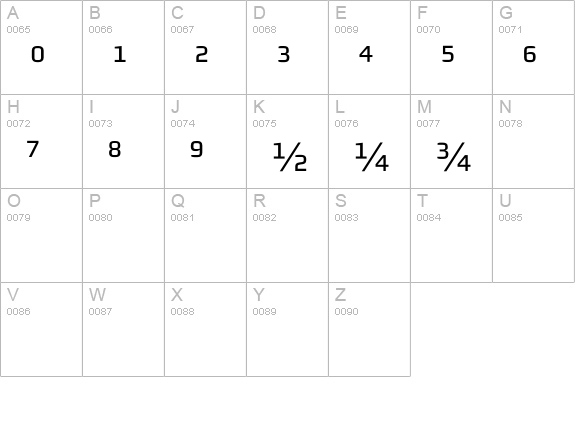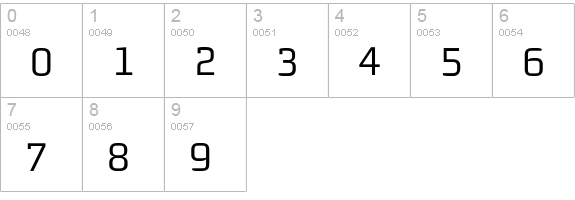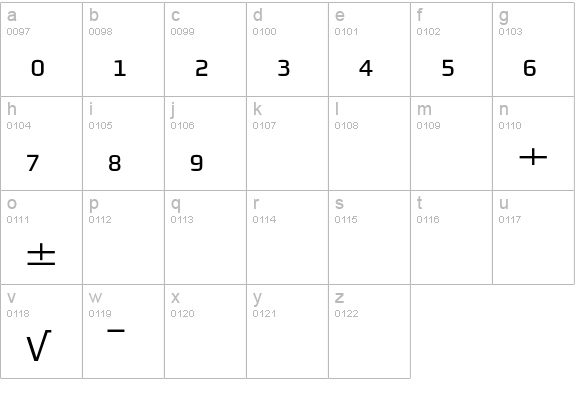
MorganAvec RegularFigures font is a versatile and modern typeface that is perfect for a wide range of design projects. Its clean lines and balanced proportions make it ideal for both headers and body text. This font exudes elegance and sophistication, adding a touch of class to any design. What sets MorganAvec RegularFigures font apart is that it is available for free download at FontsMarket.com. This means that you can easily access this high-quality font without any cost, making it a valuable addition to your font library. Whether you're working on a professional project or a personal creation, MorganAvec RegularFigures font will elevate your design with its timeless appeal.